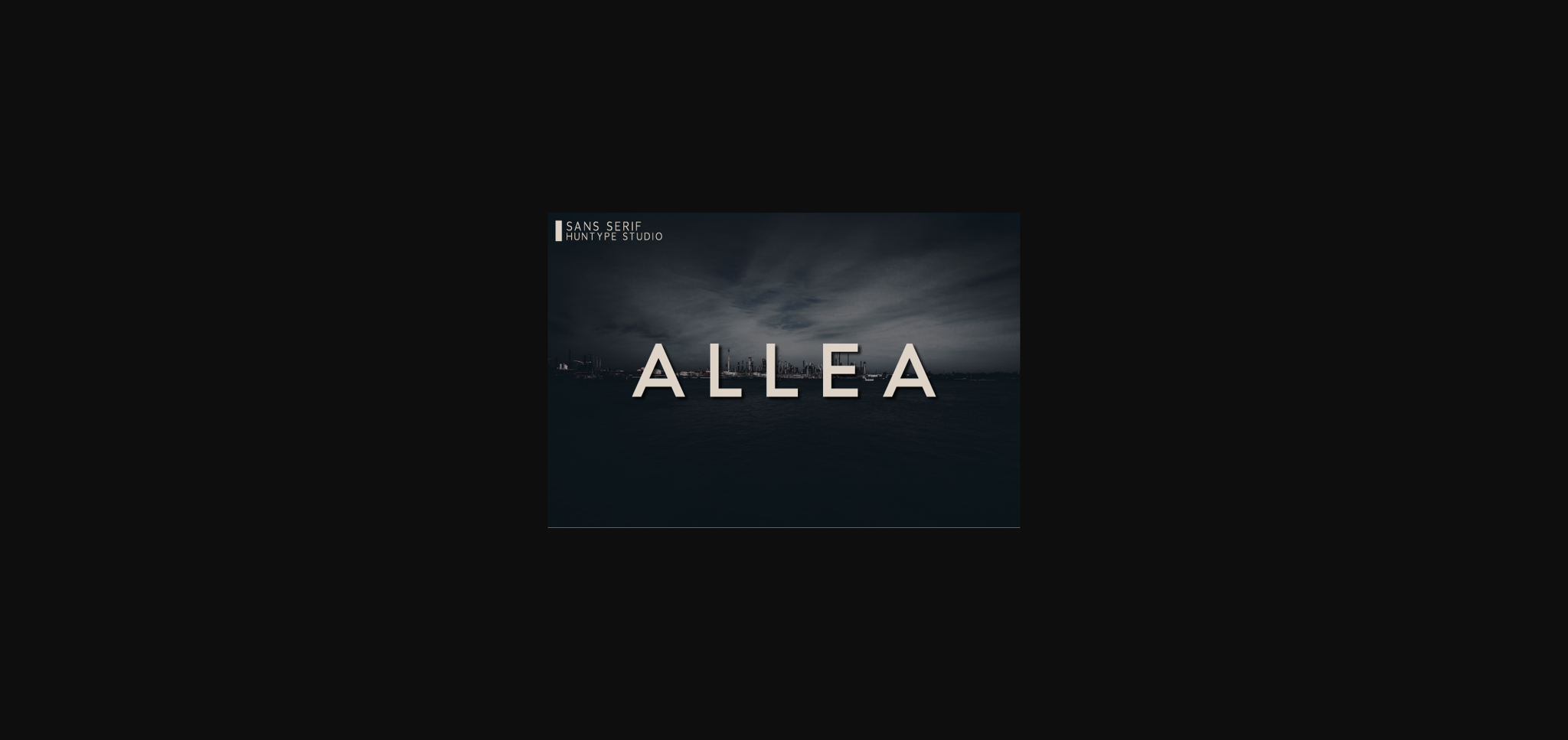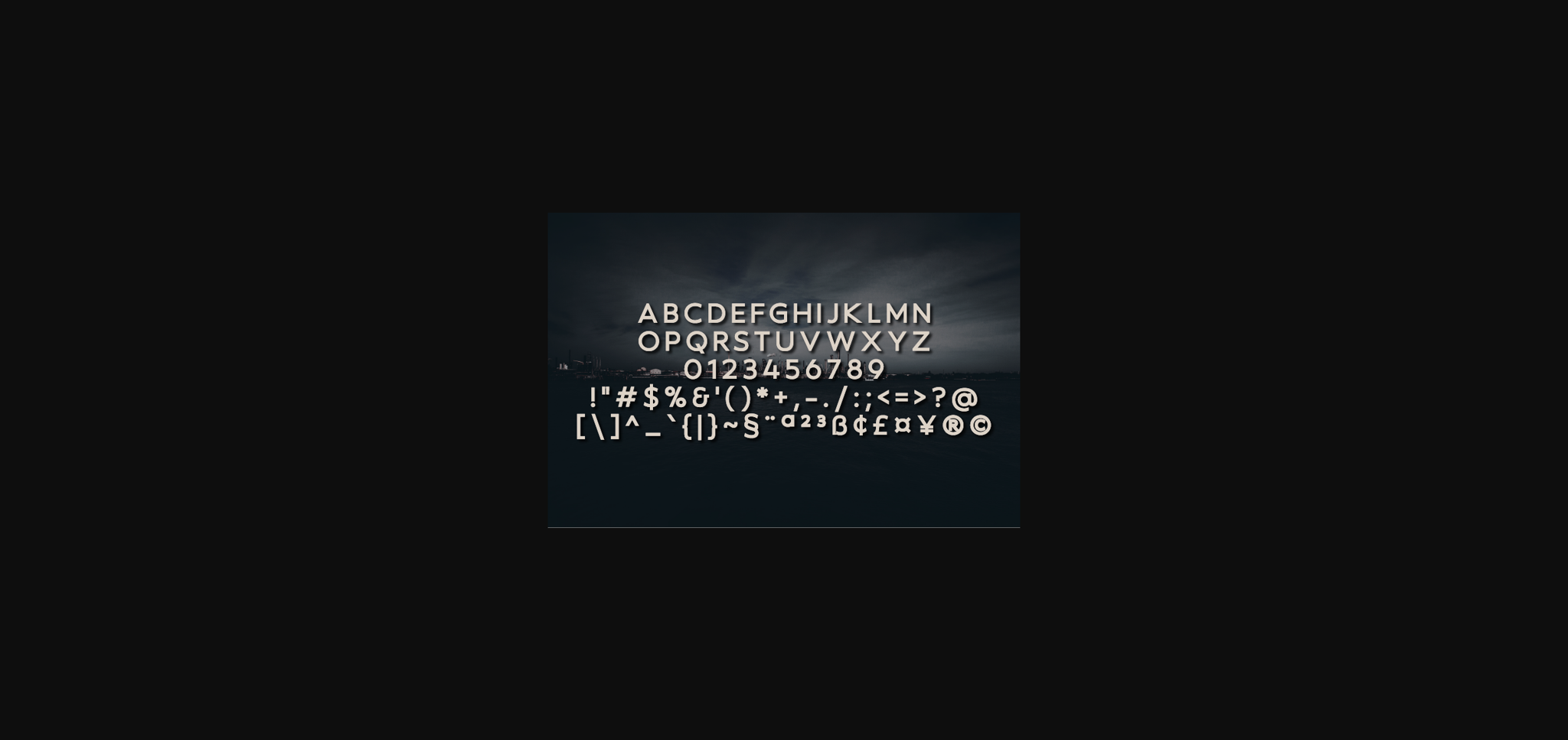
About Allea Font
Allea is a timeless sans serif font. Whether you’re looking for fonts for Instagram or calligraphy scripts for DIY projects, Allea will turn any creative idea into a true piece of art!